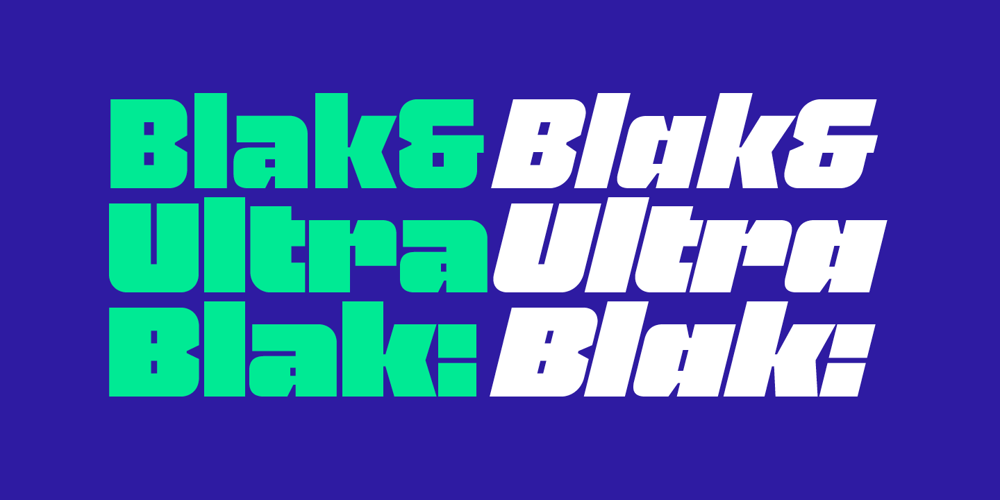
Blak Font Family was designed by Íñigo Jerez and published by Extratype. Blak contains 4 styles and family package options. Blak belongs to the type series designed by Íñigo Jerez for the defunct magazine Suite. This chubby typeface now has a second life in our collection. Use it with confidence for big statements.